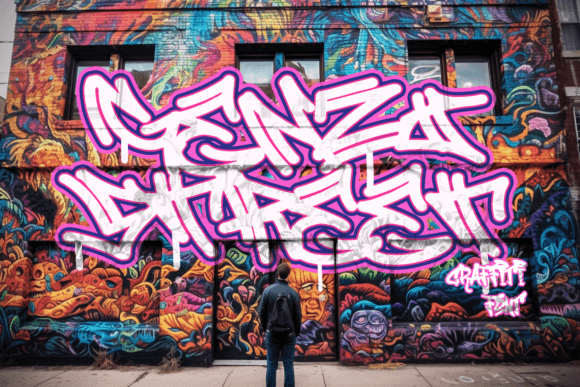
Journey through the streets of urban expression with Genzi Street Font, a graffiti masterpiece crafted for the digital realm. This monoline wonder, etched with natural street-handwritten accents, captures the essence of urban culture and brings it to life within your designs. Immerse yourself in the energy of the city, where raw creativity meets edgy aesthetics.
With Genzi Street, you hold the key to unlocking a world of design possibilities. Whether you're a seasoned urban brand designer, a streetwear enthusiast, or simply a creative spirit seeking a gritty and dynamic touch, this font is your passport to captivating typography. Let your imagination run wild as you explore its potential, transforming your projects into vibrant expressions of urban flair.
Picture your designs adorned with Genzi Street's bold and confident strokes, reminiscent of street art that electrifies city walls. Your branding will radiate with an authentic urban vibe, attracting a discerning audience who appreciates the intricate details and raw energy that define this font. Unleash your inner artist and let Genzi Street propel your designs to new heights of creativity.
Dive into the heart of urban culture and make a statement with Genzi Street Font. Its single-line charm is perfect for Cricut projects, adding a touch of urban sophistication to your personalized creations. Personalize your space, elevate your projects, and let your designs tell a story that resonates with the urban pulse.